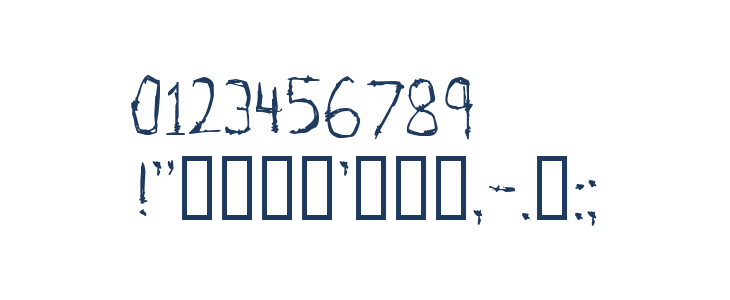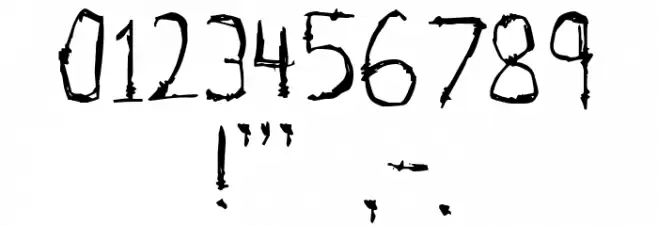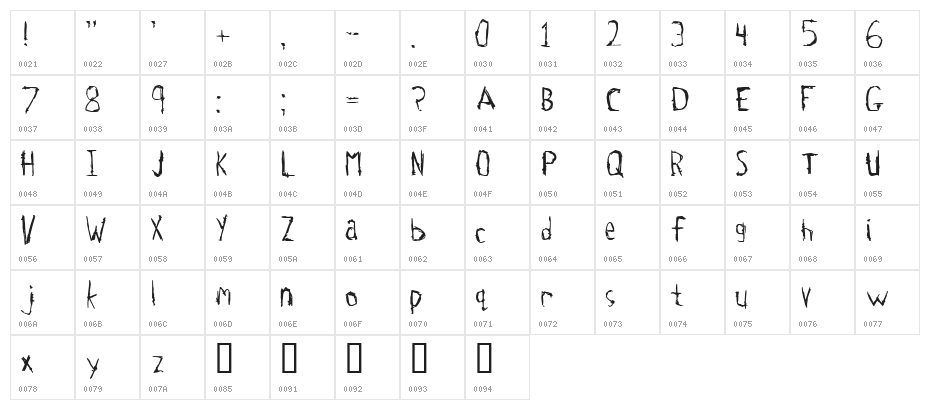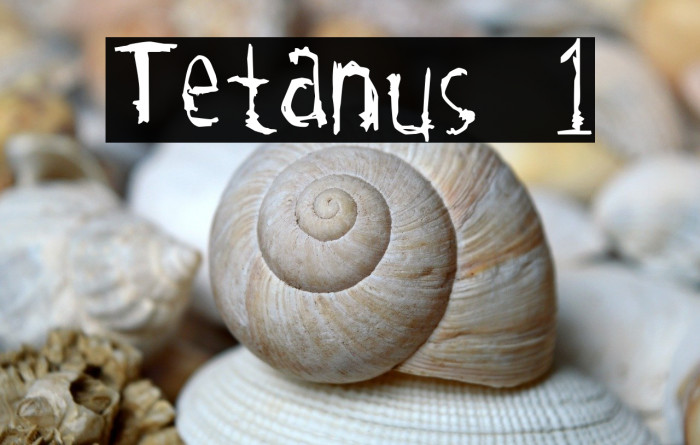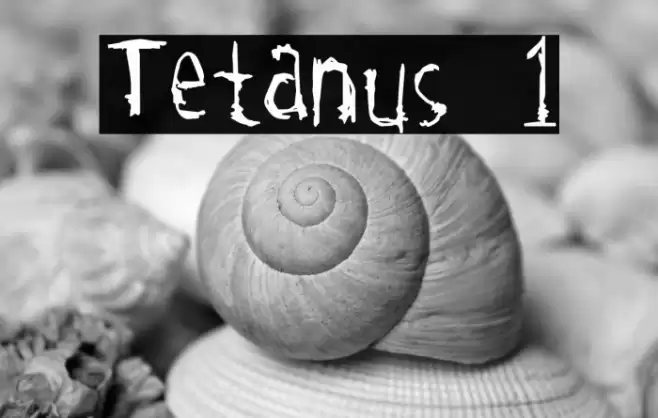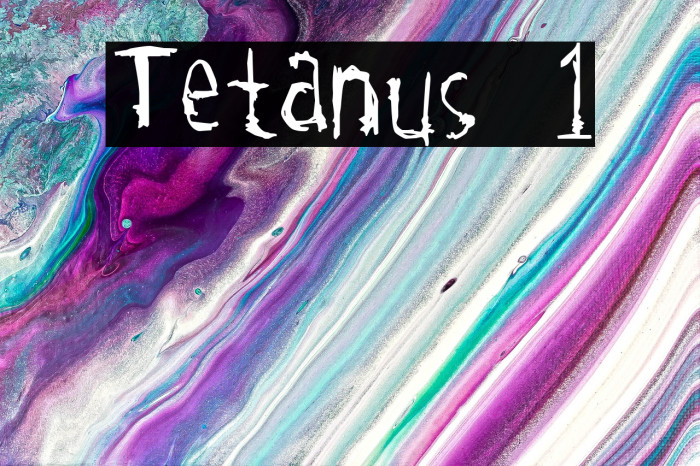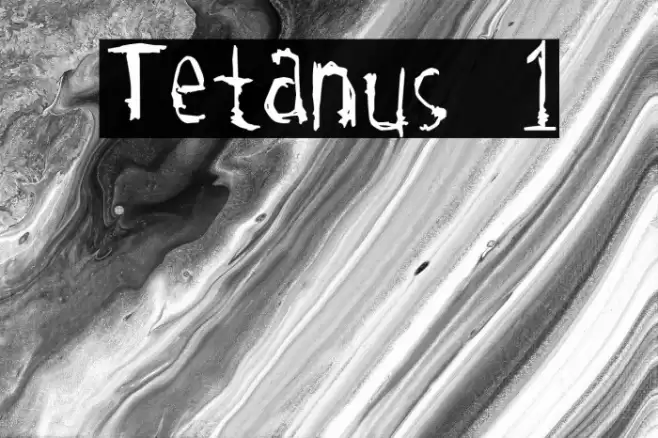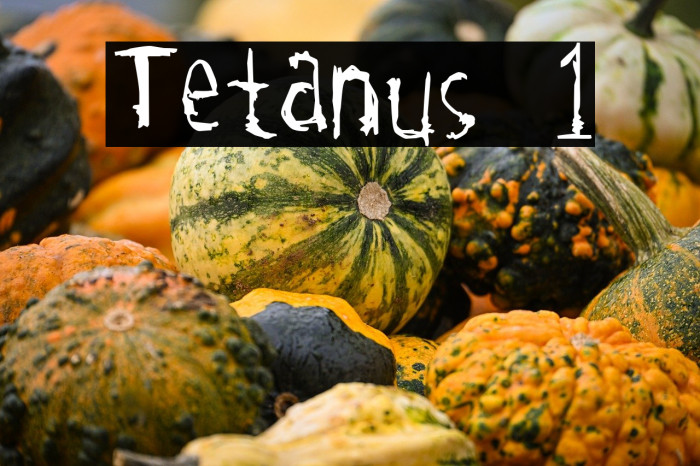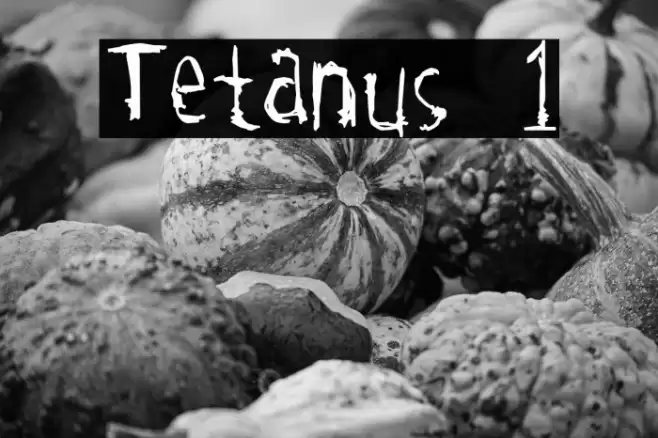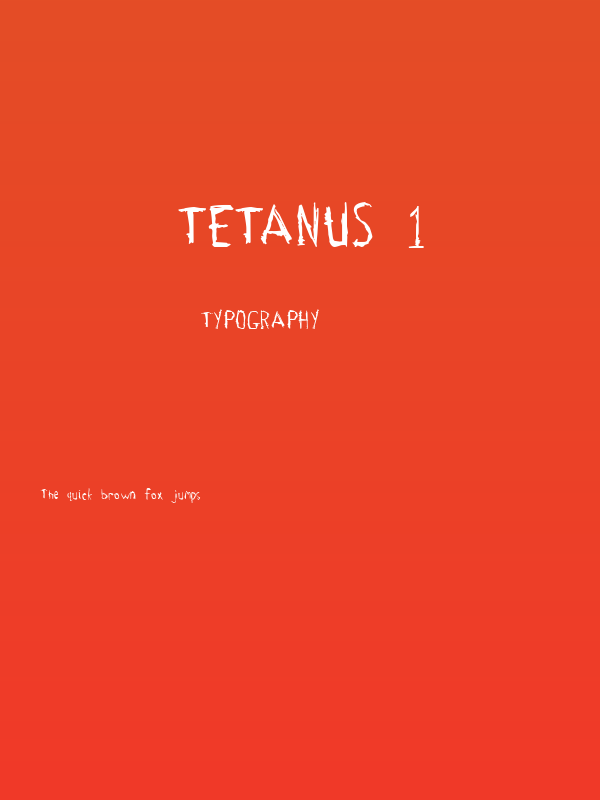
Tetanus 1 Font
Tetanus 1 Description
This font features a rugged, distressed appearance with irregular edges and a hand-drawn style. The characters are uneven, giving an impression of being scratched or etched, which adds a raw and edgy feel. The uppercase and lowercase letters maintain a consistent style, with jagged lines and a slightly chaotic structure. Numbers and special characters follow the same aesthetic, enhancing the overall grunge look. This font is ideal for projects that require a bold, unconventional appearance, such as horror-themed designs or edgy branding.
| Proposed Projects | Ideal for horror-themed designs, edgy branding, album covers, and poster art. |